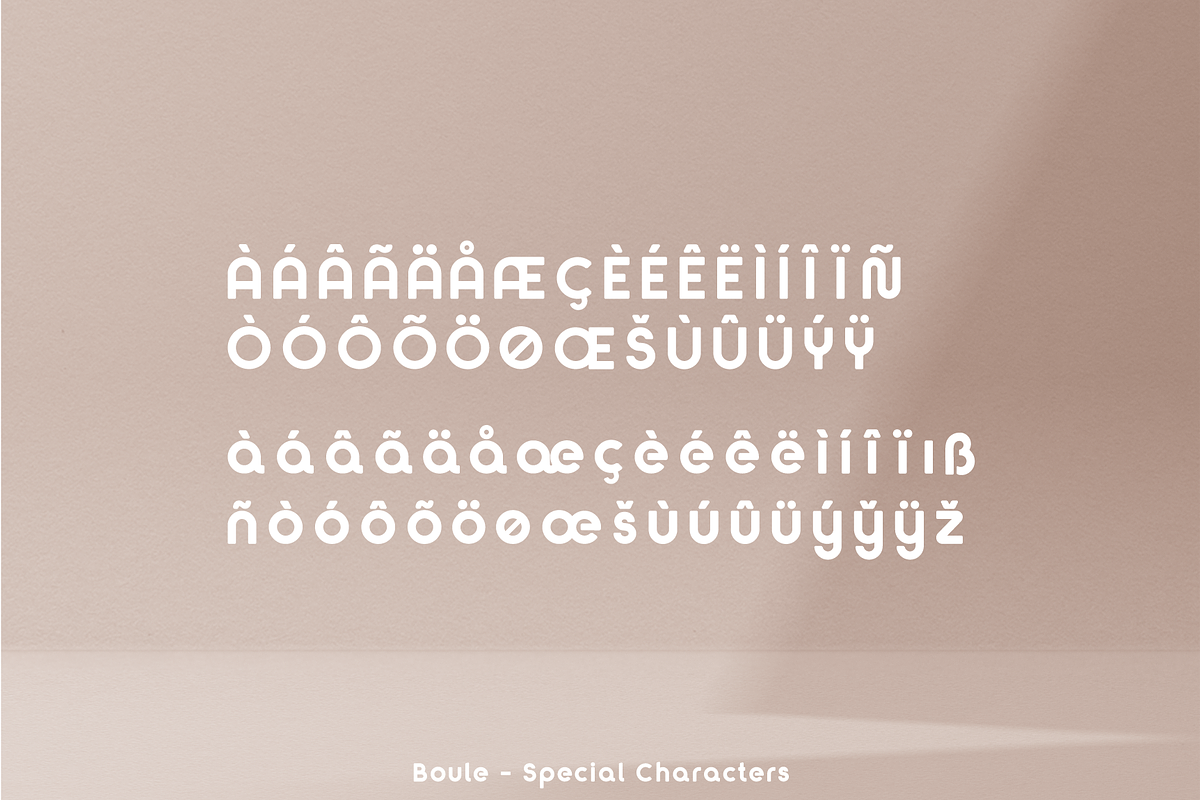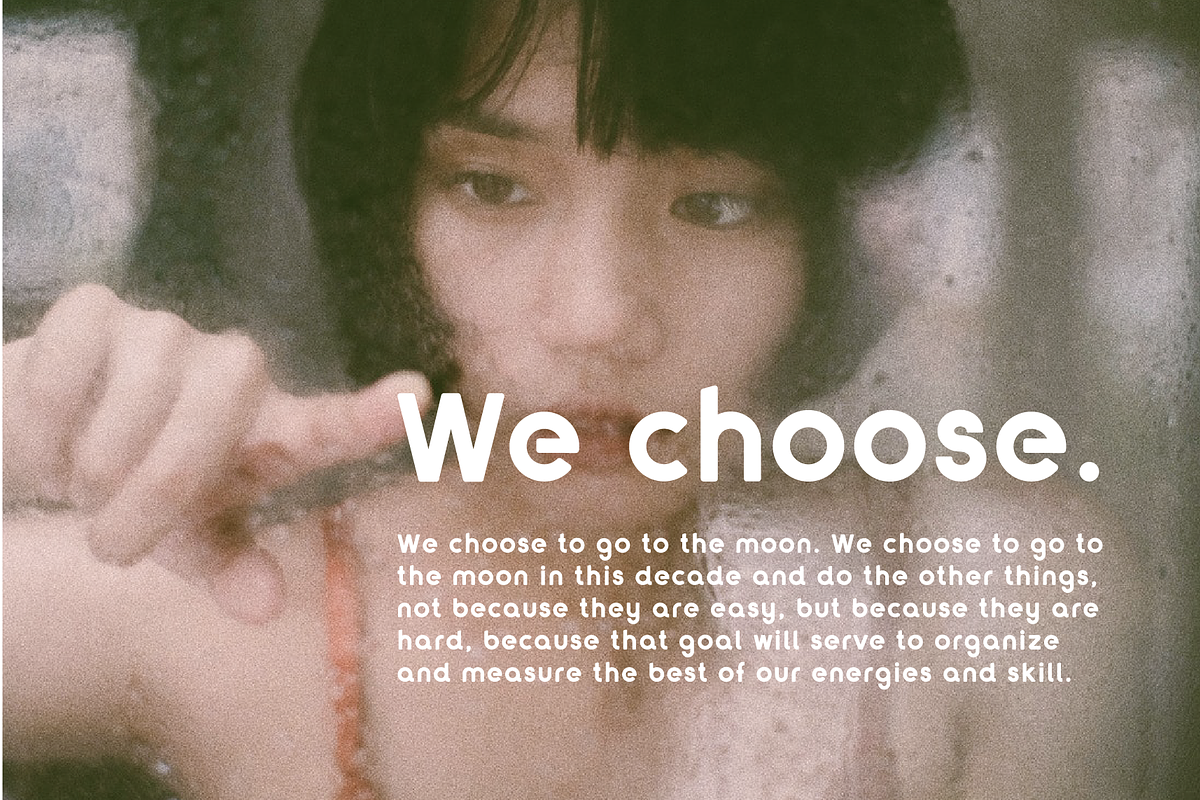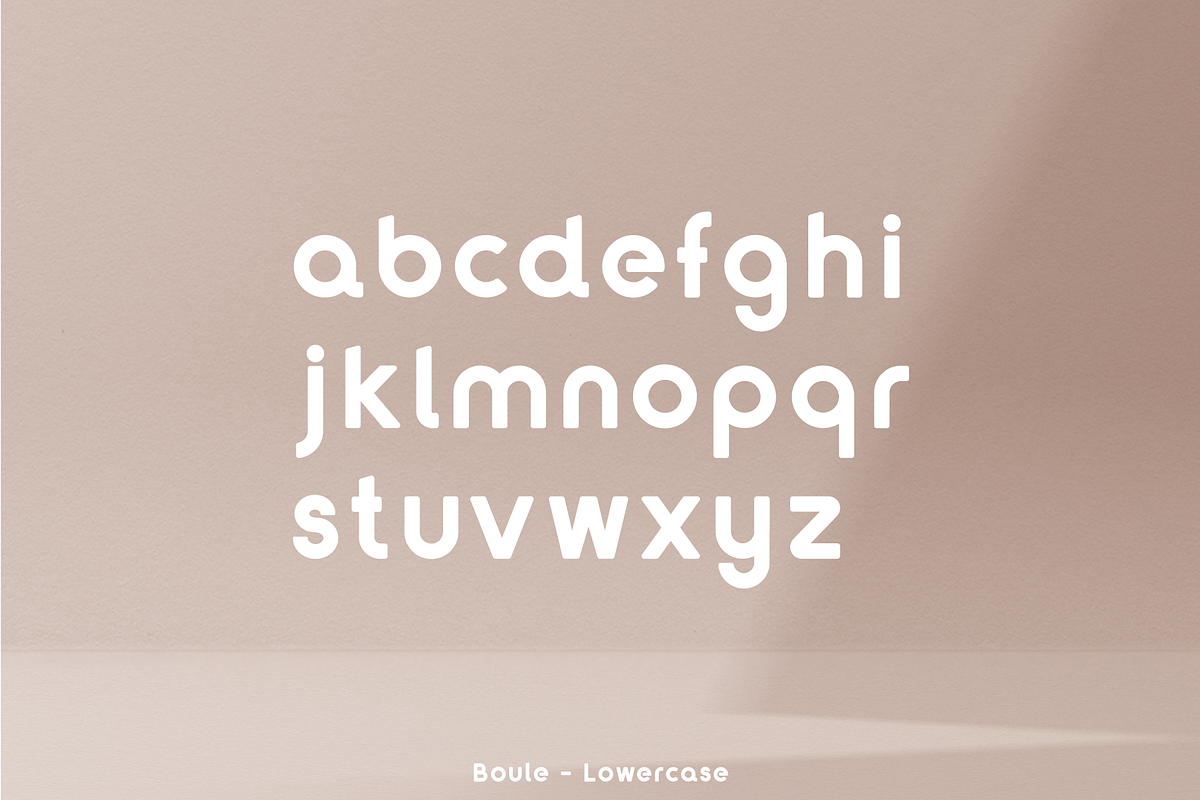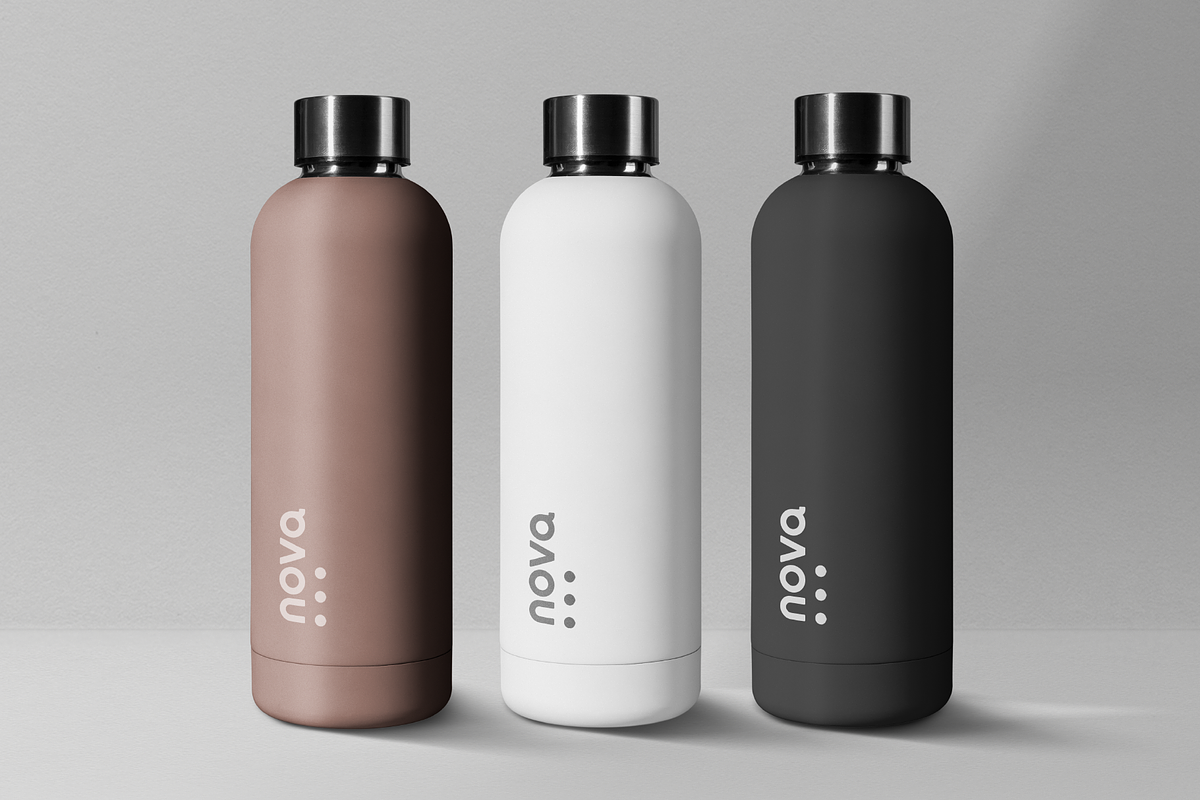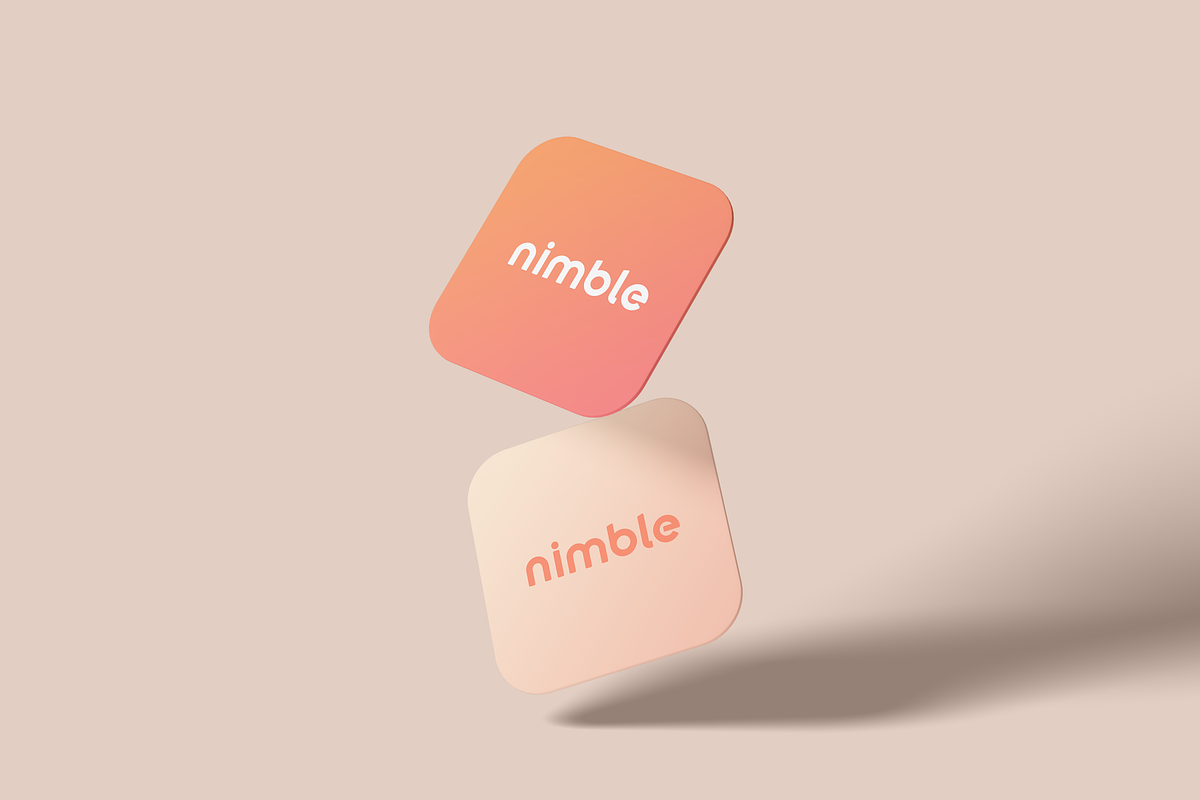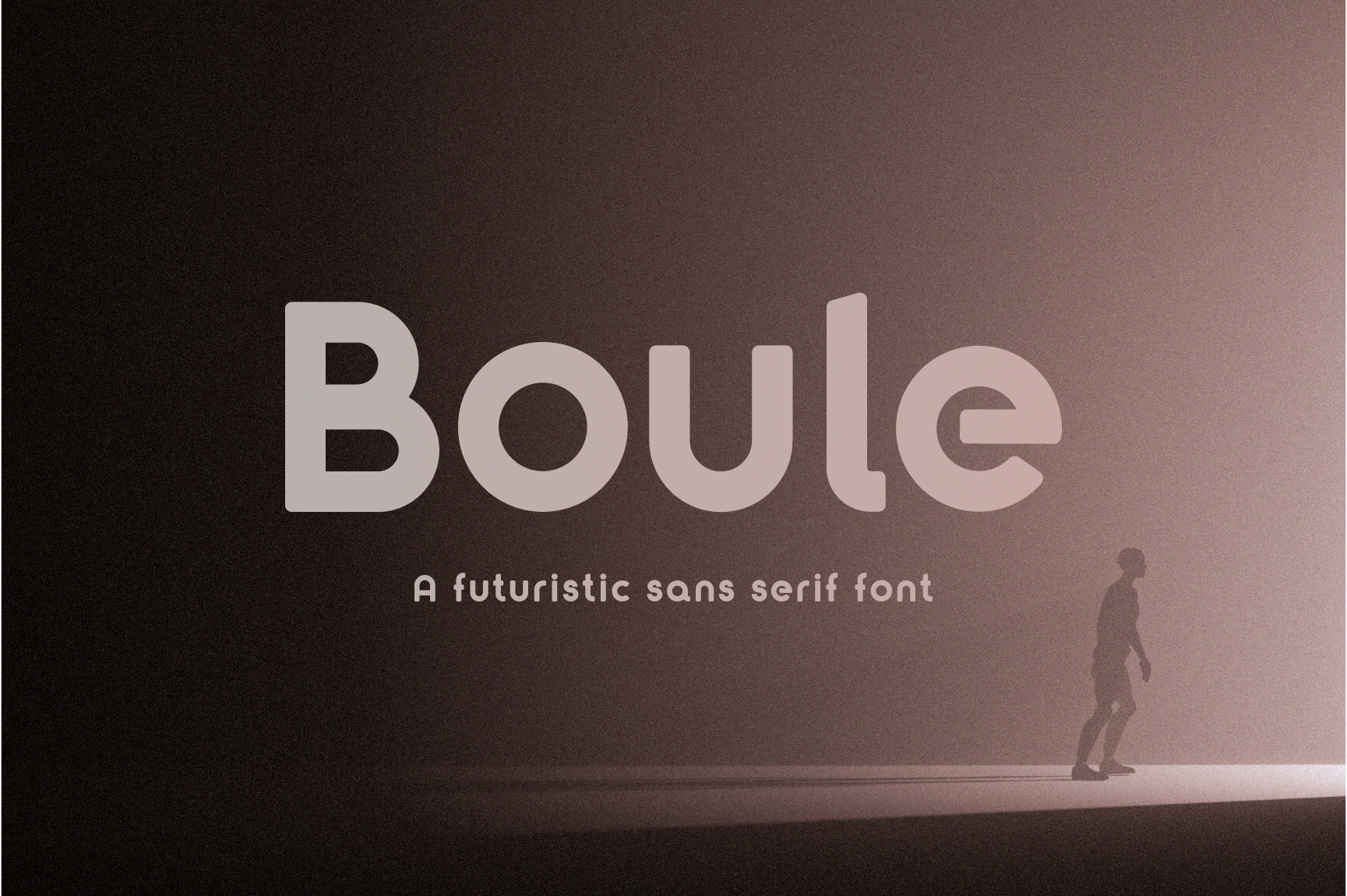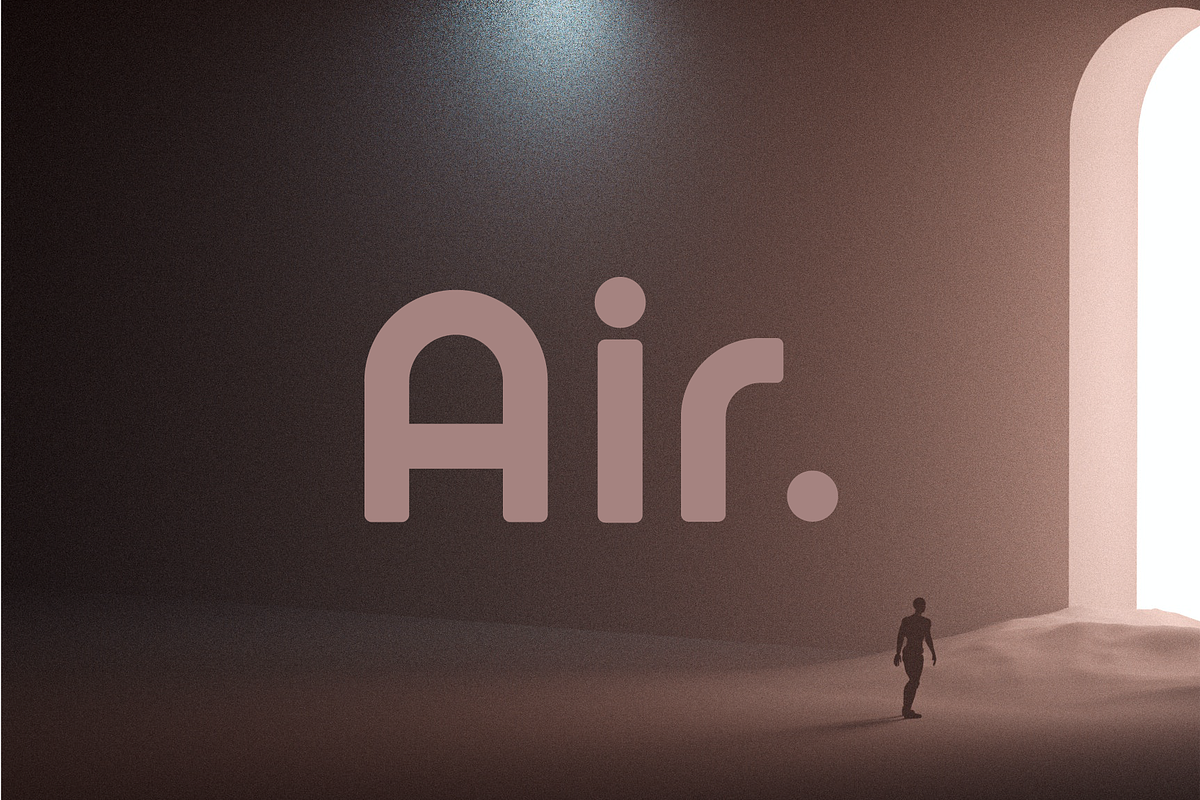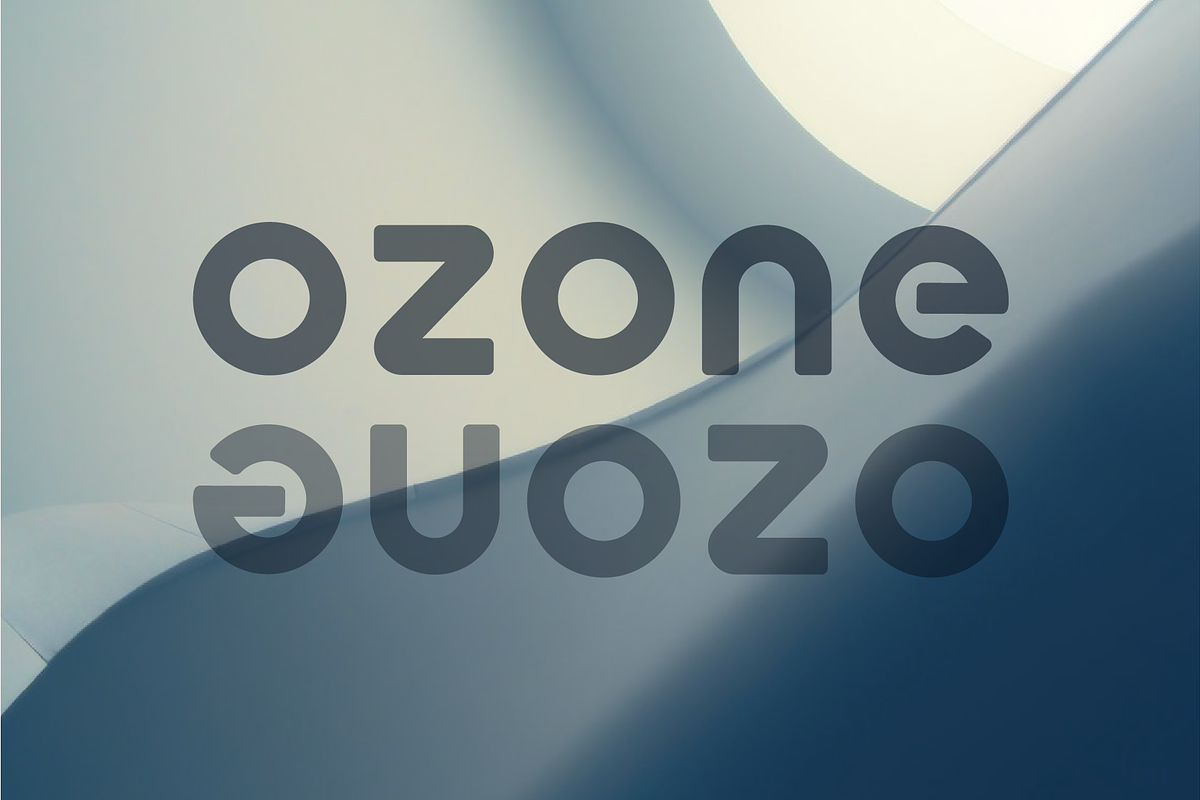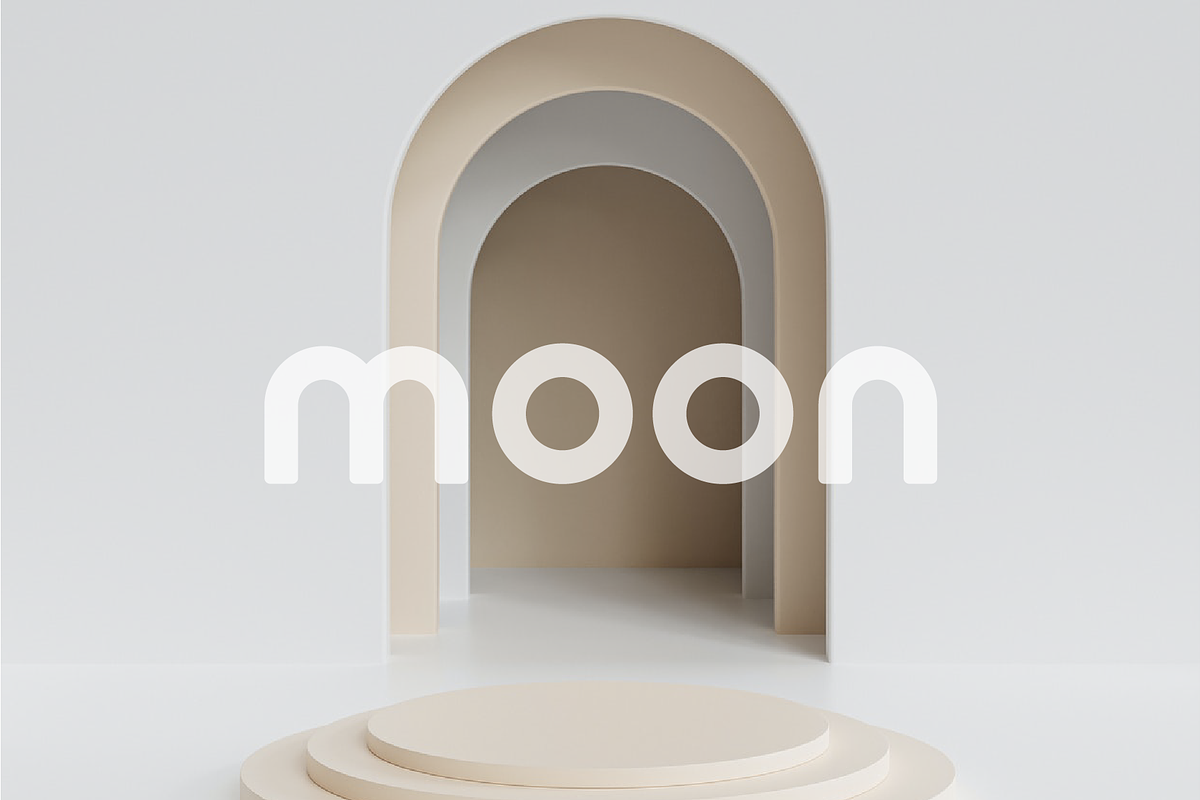
Boule - A futuristic Sans Serif Font
Boule | A futuristic Sans Serif Font
Boule is an interesting and geometric sans serif font built on circles. It’s it created to be suitable for clean and futuristic branding, perfect for minimal logos, apps and websites, elegant headlines, innovative products andmodern advertising.
It is a well-readable font that comes in a large variety of characters with a total of 184 glyphs. It supports most European languages, if you are missing a character let me know and I will happily try to create it for you.
- All Caps & Small Caps
- Symbols & Punctuation
- A total of 184 Glyphs